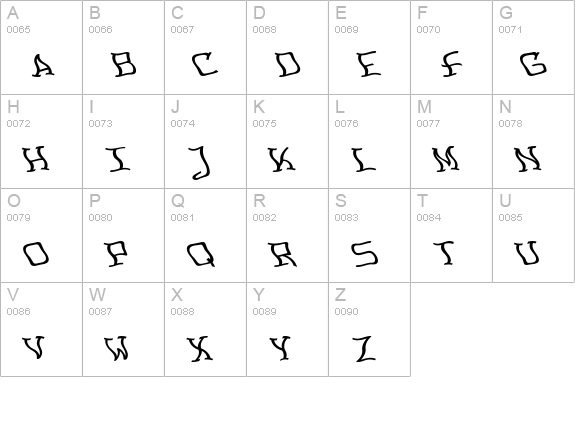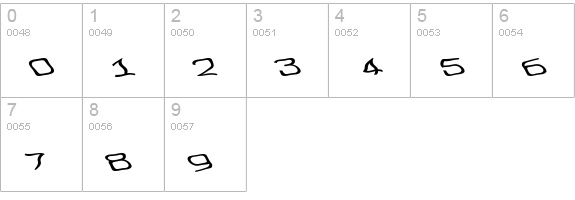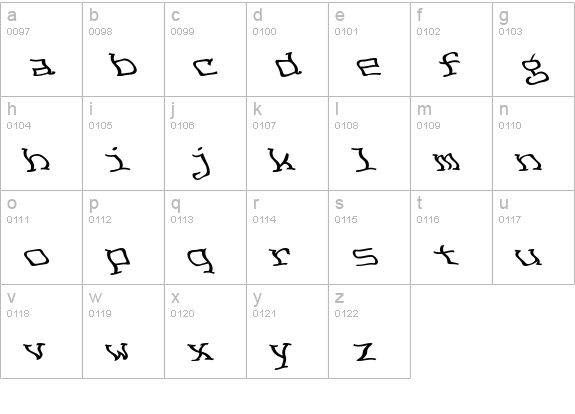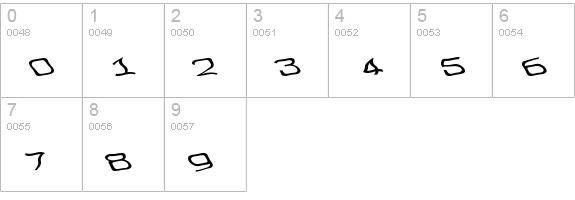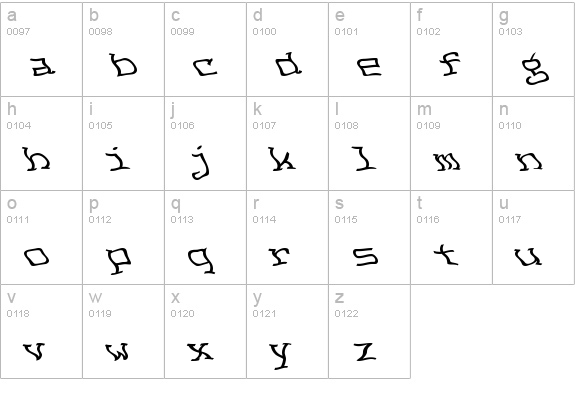
FeggoliteDancing Font Details
FeggoliteDancing font is a whimsical and playful typeface that is sure to bring a sense of joy and creativity to any design project. With its fluid and dynamic letterforms, FeggoliteDancing exudes a sense of movement and rhythm, making it perfect for projects that require a touch of fun and energy. This unique font is free to download at FontsMarket.com, making it accessible to designers of all levels. Whether you're working on a poster, logo, website, or any other creative project, FeggoliteDancing will add a cheerful and vibrant touch to your designs. Its versatility and charm make it a must-have in any designer's toolkit. Embrace the lively spirit of FeggoliteDancing font and let your creativity dance freely with this delightful typeface. Download it now and bring your designs to life with its playful and dynamic personality.